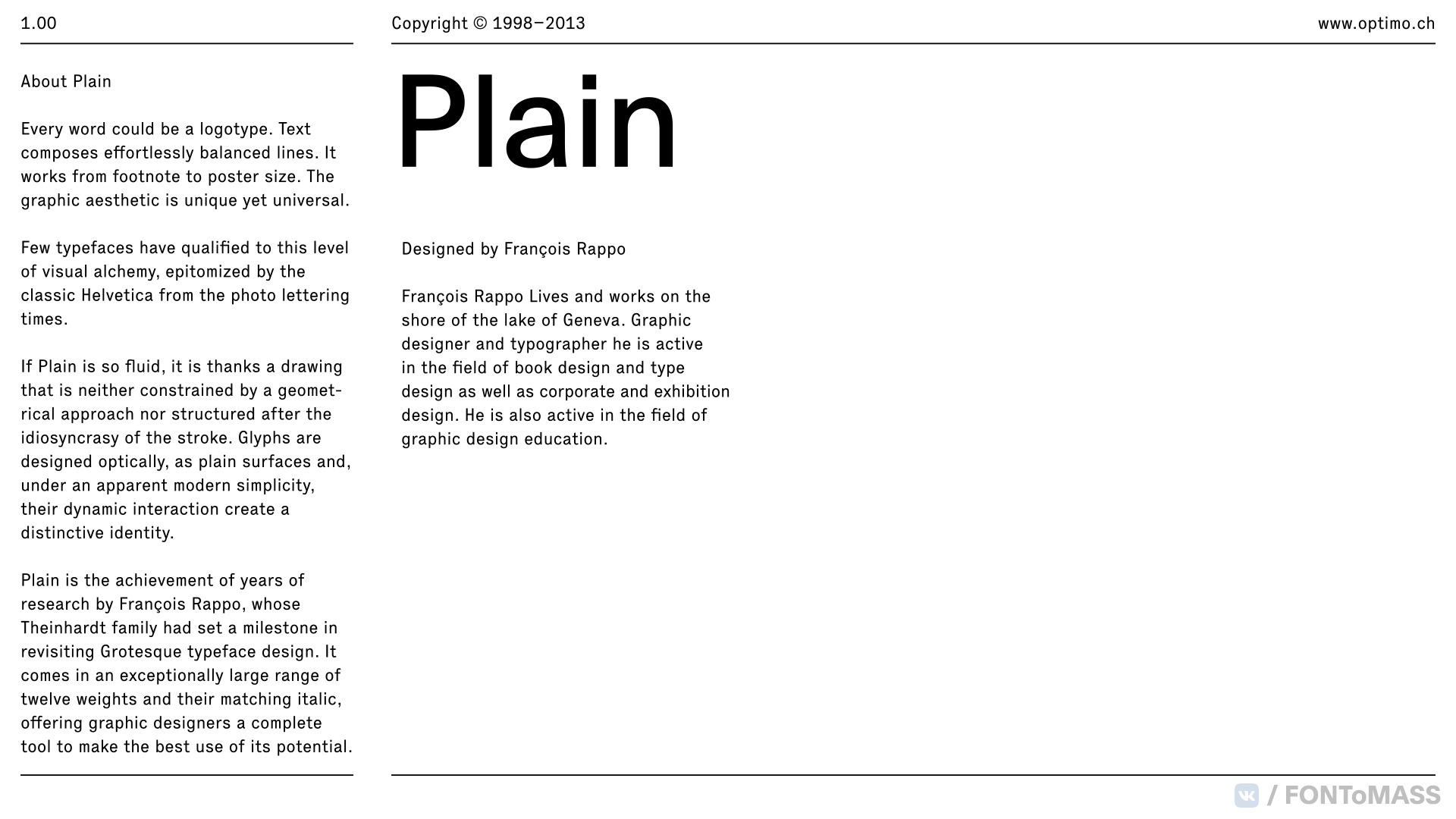
Plain Font
Plain Font is perfect for minimalist branding, clean corporate communications, simple product packaging, straightforward documentation, basic web design, neutral business materials, uncluttered layouts, essential signage systems, clear instructional design, and fundamental typography applications.
Plain Font is exciting because it represents the power of simplicity with its clean, unadorned letterforms that eliminate visual distractions and allow content to communicate with pure clarity and directness. Its straightforward design philosophy embodies the "less is more" principle, making it perfect for brands that value honesty, transparency, and clear communication over decorative complexity in today's information-saturated world.
The Plain Font family includes Light, Regular, Medium, Bold weights, corresponding Italic styles, Condensed versions, Extended variations, Basic alternates, Simple elements, and Clean ornaments, providing designers with comprehensive tools for creating honest typography that prioritizes function over decoration while maintaining professional quality and readability.
Plain Font Free Download delivers essential typography for applications requiring absolute clarity and straightforward communication, featuring precisely crafted letterforms that excel in environments where information must be transmitted without visual interference. This fundamental typeface combines typographic honesty with practical functionality, creating the perfect solution for organizations that prioritize clear communication and transparent design principles.
Whether you're developing no-nonsense brand identities, designing clear documentation systems, creating simple user interfaces, or producing straightforward communications, Plain Font provides the honest foundation needed for transparent information design. Its direct character makes it particularly effective for government agencies, educational institutions, healthcare organizations, and service companies that require clear, accessible communication without visual complications.
Perfect for information designers, technical writers, government communicators, and professionals working with accessibility requirements, this font offers the clear qualities essential for successful transparent communication. The typeface's straightforward approach ensures consistent clarity across complex documentation, public information systems, and essential service communications.
Plain Font includes comprehensive basic character sets, accessibility-focused features, and clarity-optimized spacing that guarantees superior performance in fundamental communication applications. Its honest approach to typography makes it indispensable for organizations requiring clear, unambiguous information delivery. Embrace simplicity with Plain Font Free Download and create typography that truly speaks plain truth.